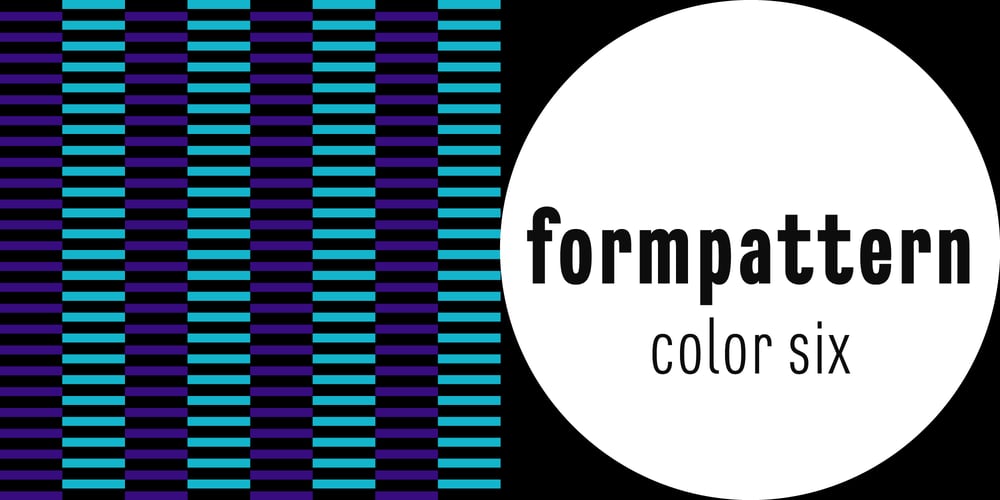
FormPattern Color Six Font Family was designed by Donald Tarallo, Alex Tarallo and published by Tarallo Design. FormPattern Color Six contains 11 styles and family package options. Use this font to make lines, borders, patterns, backgrounds, unique bullets, or use it inline within text. Let your imagination explore the possibilities to combine these geometric shapes. Use letter spacing to connect the shapes in a continuous pattern, or space them apart horizontally. Stack them vertically and control their distance with leading (line spacing). Make fields of pattern and explore layering and opacity for color mixing. FormPattern Color Six takes inspiration from mosaic patterns seen in the south of Italy.It is easier to use this font to make patterns than to use drawings because you can control the size, color, and spacing from the type menu. It is also an effective way to make web graphics that are responsive with text.Using it is simple. As you type, forms will appear instead of letters. Each font in this collection is a colored set. The sets are primary, secondary, tertiary, analogous, dark, old world, vintage, greyscale, cool grey, and warm grey. There is a solid font that can be colored in the same way as regular fonts. The color fonts are accessed in the type menu where you would normally find the different weights or italicsMost design software, such as Illustrator, InDesign, and Photoshop provide a glyphs palette where you can choose the precise form you want. It can work with the simplest text editors too. However, these may not support the color options.FormPattern Color Six is a vector-based and fully scalable SVG OpenType format. Color fonts are supported by Photoshop 2017, Illustrator 2018, and QuarkXPress 2018 (and later versions).This version of FormPattern Color Six is compatible with all FormPattern fonts by Tarallo Design. The display artwork shows it paired with the typeface Scanno.